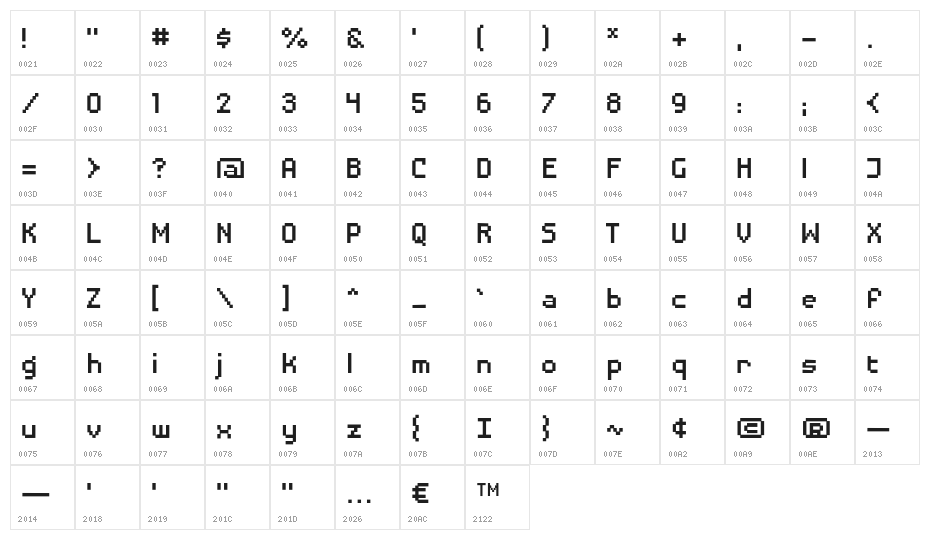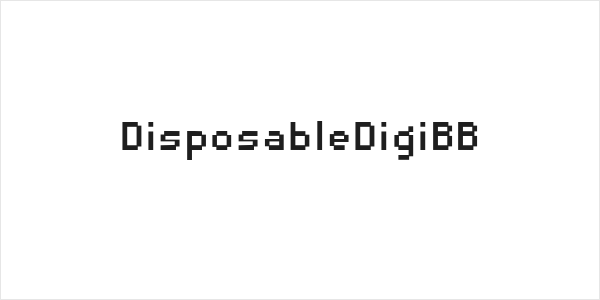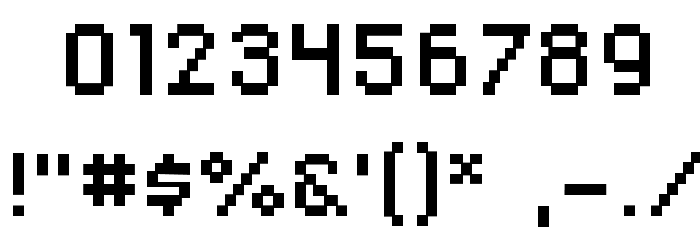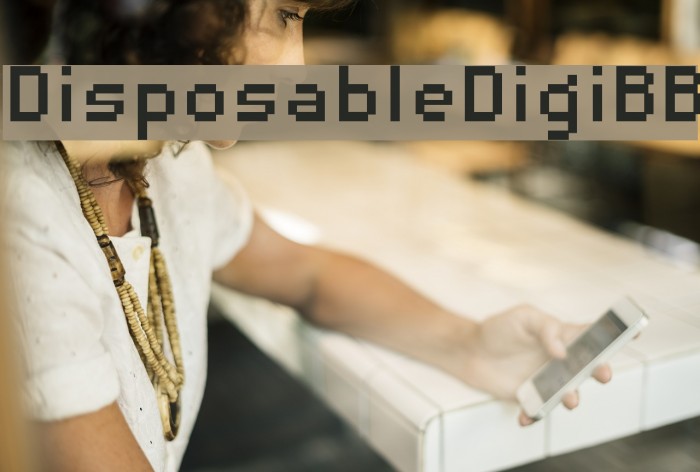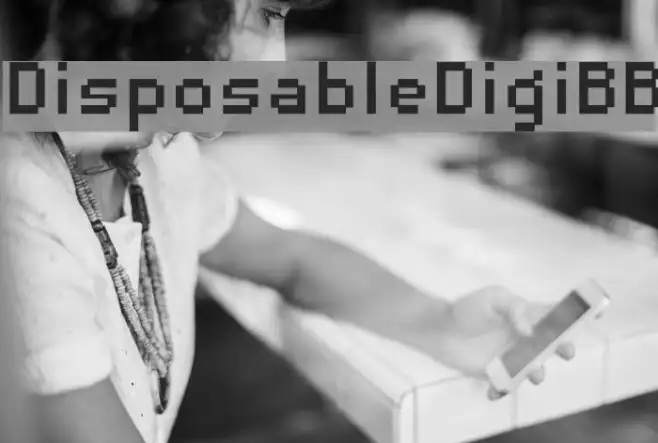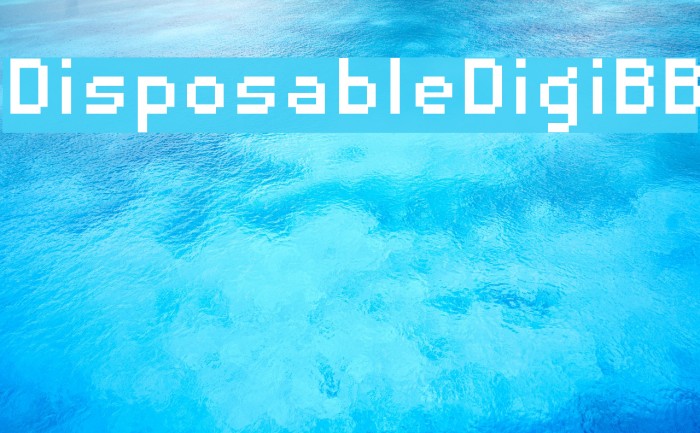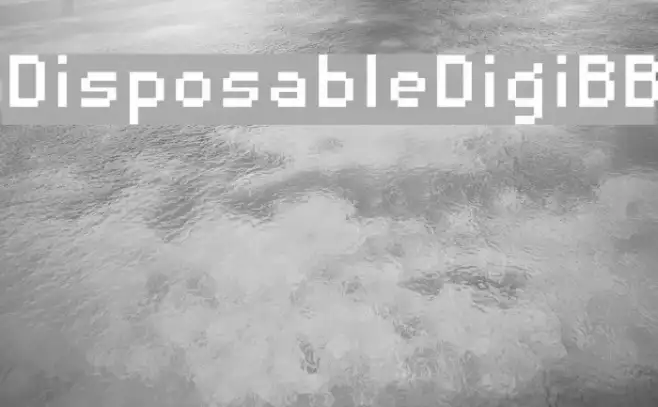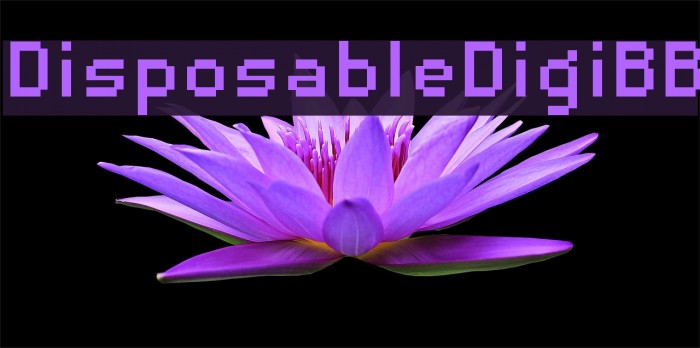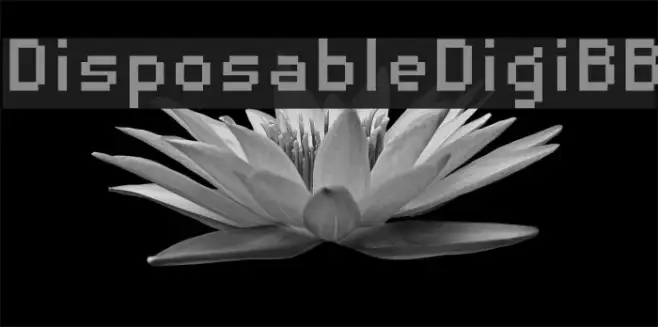
DisposableDigiBB Font
DisposableDigiBB Description
This font features a pixelated, digital appearance reminiscent of early computer screens and video games. Each character is composed of small, square blocks, giving it a distinctly retro and technological feel. The uppercase and lowercase letters maintain a consistent height, contributing to a uniform look across text. Numbers and special characters follow the same pixelated style, ensuring cohesion throughout. The font's design is straightforward and geometric, making it ideal for projects that aim to evoke nostalgia or a digital aesthetic. Its simplicity and clarity make it easy to read, even at smaller sizes.
| Use Case | Headlines, Logos, Digital Art |
| Proposed Projects | Ideal for retro video game designs, digital-themed posters, tech-related branding, and nostalgic web designs. |